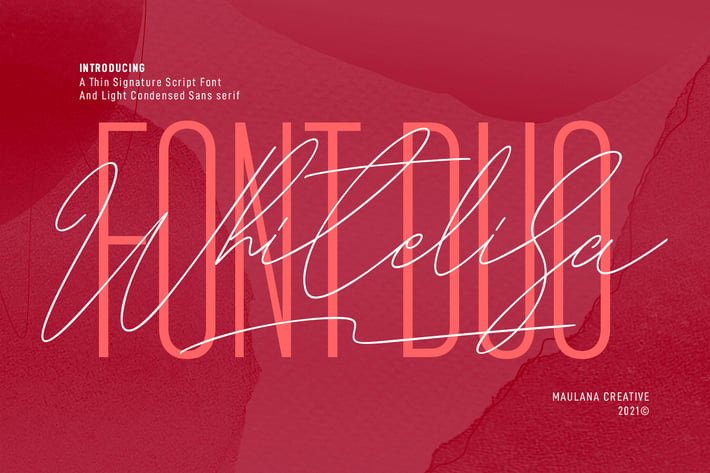
Whitelisa Script And Sans Font Duo
Whitelisa is a complete script and sans combine font. With light and catchy display sans. fun character with some of ligatures, alternates script and extra swash. To give you an extra creative work. Whitelisa font support multilingual more than 100+ language. This font is good for logo design, Social media, Movie Titles, Books Titles, a short text even a long text letter. Make a stunning work with Whitelisa font.